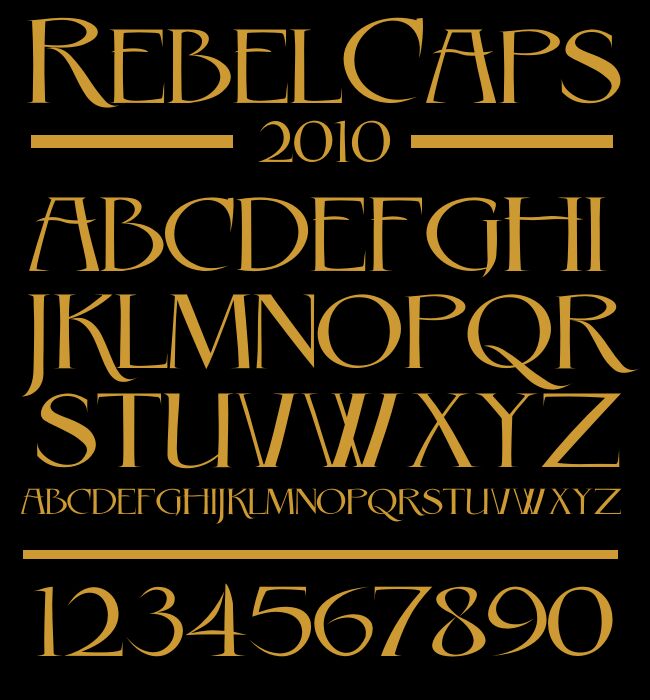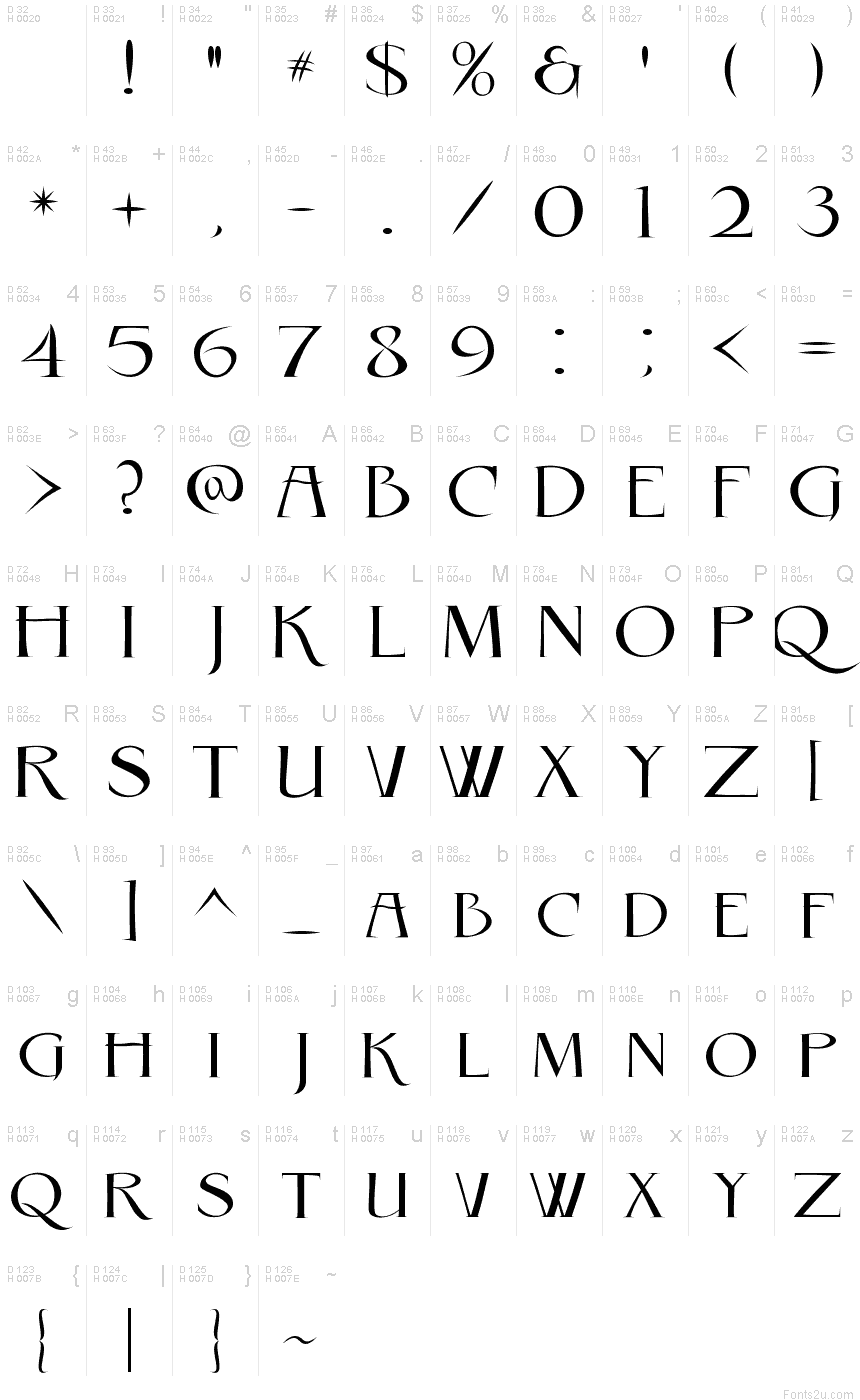
Rebel Caps
I created the fonts myself with CorelDraw and FontLab's TypeTool. Designed in 2002 and resurfaced in 2009. I wanted to share my works. Feel free to use it, I may update it with more symbols or foreign accents (I did Russian and Greek alphabets), credit would be very nice but not essential.